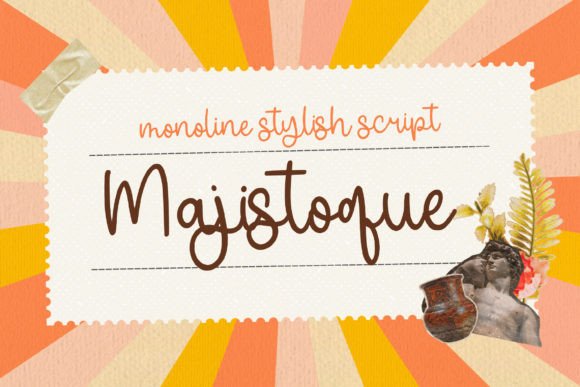
Leap into the mesmerizing world of Majistoque, a script font that embodies the essence of seduction and indulgence. Its graceful curves and subtle sensuality dance across your designs, creating an aura of allurement that is impossible to resist. Unleash your creativity and allow Majistoque's captivating charm to transform your projects into visual masterpieces.
With Majistoque, you'll hold the key to crafting captivating headlines that command attention and leave an imprint on every reader's mind. Its elegant letterforms ignite curiosity and intrigue, drawing them deeper into your message. Picture the allure of a luxury brand's logo, where Majistoque's refined strokes exude a sense of opulence and timeless sophistication.
Indulge in the artistry of Majistoque and elevate your packaging designs to new heights of sophistication. Allow its seductive curves to embrace your products, creating an irresistible allure that beckons customers to explore further. The very essence of Majistoque evokes an air of exclusivity and indulgence, making it the perfect choice for businesses seeking to stand out in a crowded marketplace.
Relish the freedom to express your creative vision without limits. Majistoque's versatility shines in both digital and print mediums, making it a true asset for designers of all kinds. Its nuanced details and harmonious flow bring a touch of magic to invitations, greeting cards, posters, and social media graphics. Experience the thrill of crafting designs that resonate with your audience on a deeper level.
Discover the allure of Majistoque and let your imagination flourish. Its seductive nature is the missing ingredient your designs have been craving, promising to transform them into captivating works of art. Embrace the allure of Majistoque and embark on a creative journey filled with passion, sensuality, and undeniable charm.